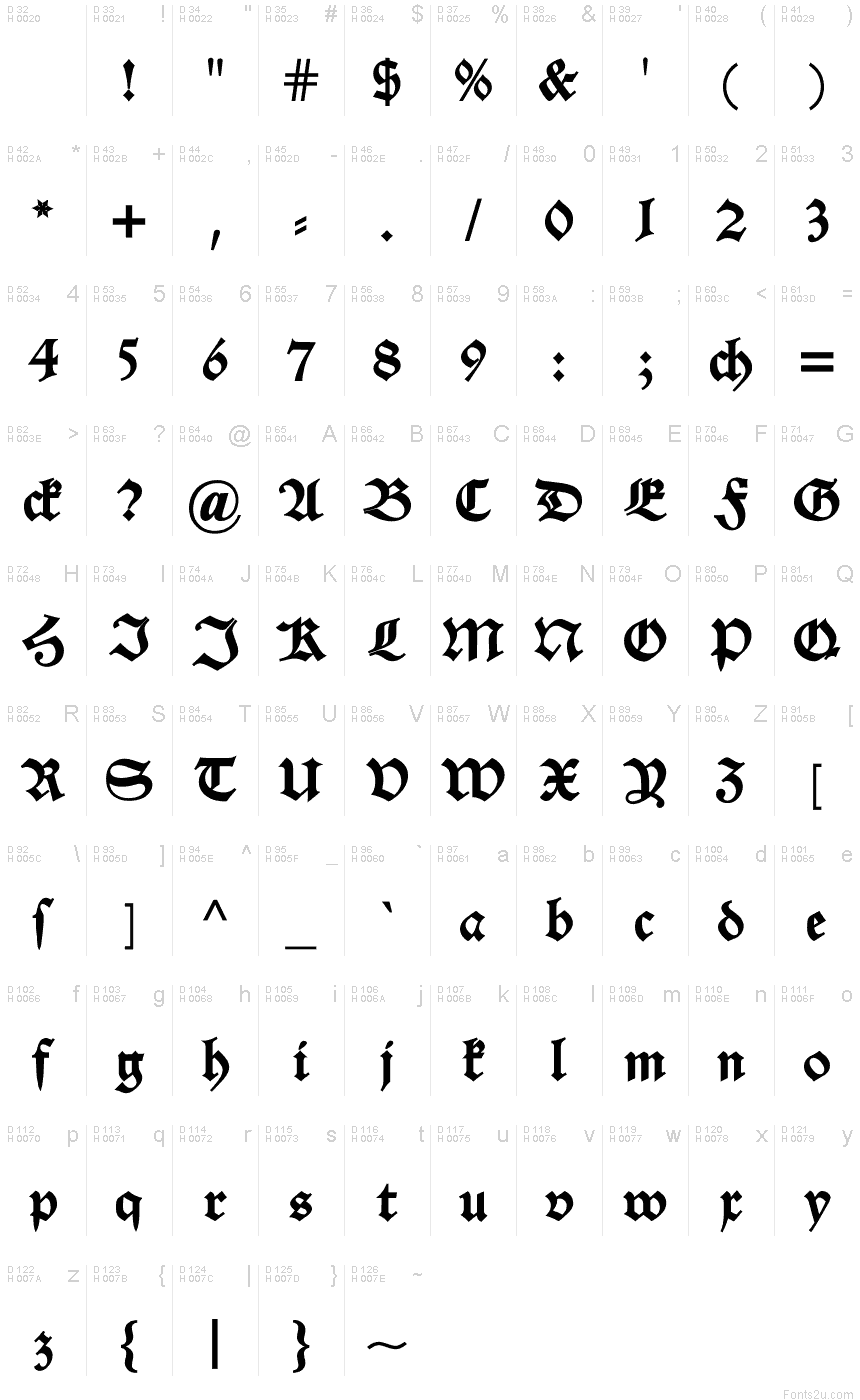
Alte Schwabacher DemiBold
Alte Schwabacher DemiBold by Typographer Mediengestaltung is a free Schwabacher blackletter font with broad strokes and broken curves. Pointed joins and sweeping contours recall medieval German lettering. The lettering looks forceful and ceremonial.
Historical event posters are its strongest setting because the dense silhouette establishes a period atmosphere. It also suits heritage packaging, brewery branding, and metal merchandise, where the angular construction can seem traditional or severe. In publishing, it can turn chapter openings and cover lines into a deliberate reference to early German print.